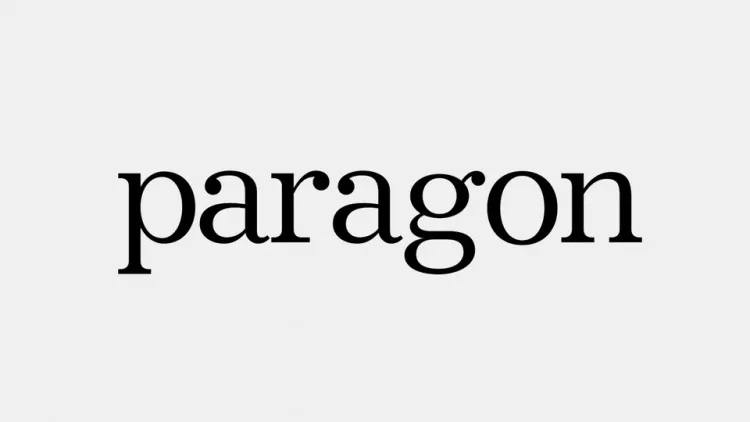
Paragon Font
Paragon Font is a modern vintage, new retro-style slab serif typeface, a revival of the typeface designed by Chauncey H. Griffith in 1935 for Linotype. A character set designed to be printed at small size in newspapers so that even if poorly printed, it is still legible.
For the Paragon type, which was intended specifically for the action of letter-press printing with newspapers, lee was prescribed to permit for the over-inking of the newspapers during the printing process, and hence it was supposed to have lighter sort and nature characteristics as compared to either of separated founts which were heavier or fatter in weight of line.
In fact the a.c.r version is ultimately derived from the effort of Phil Baines in his You Can Read Me type. It aims to set a boundary which the character unreadable to machine (OCR) but readable to human on a very short text.